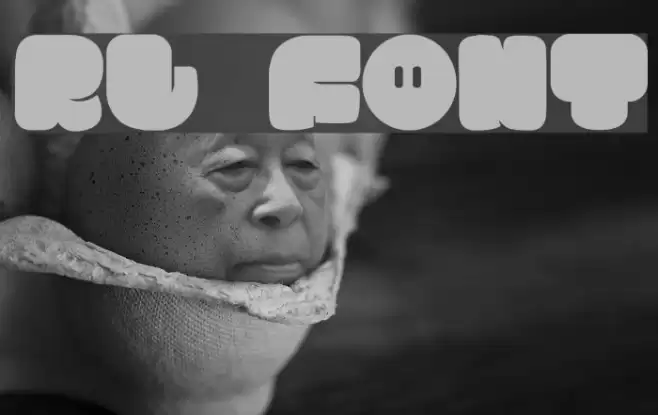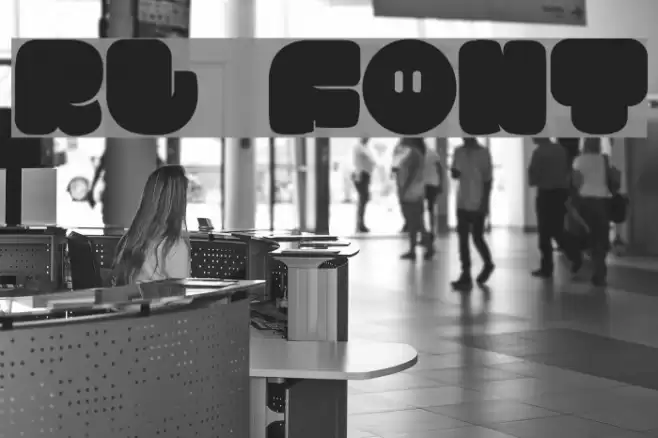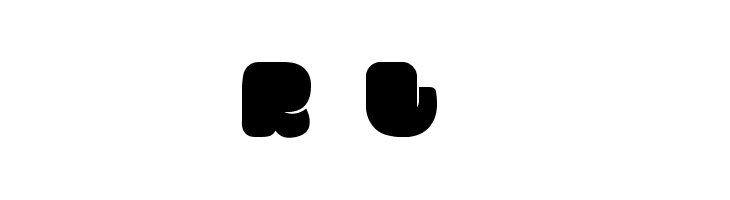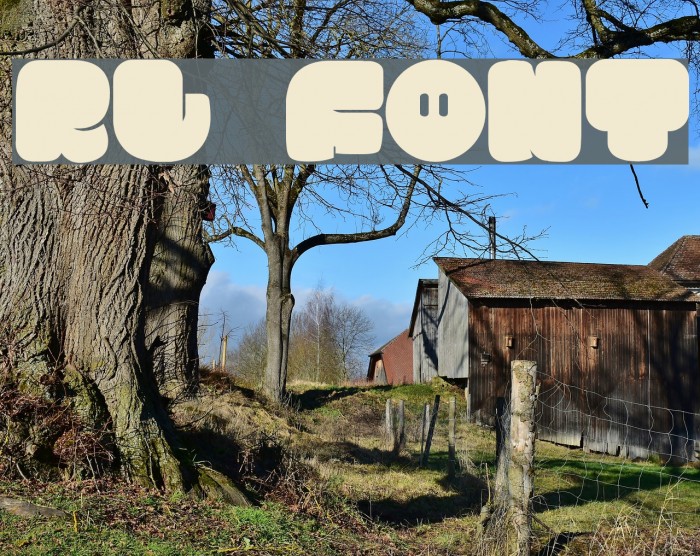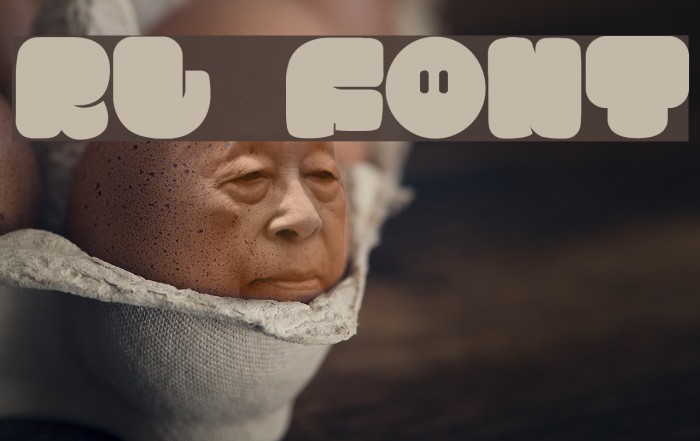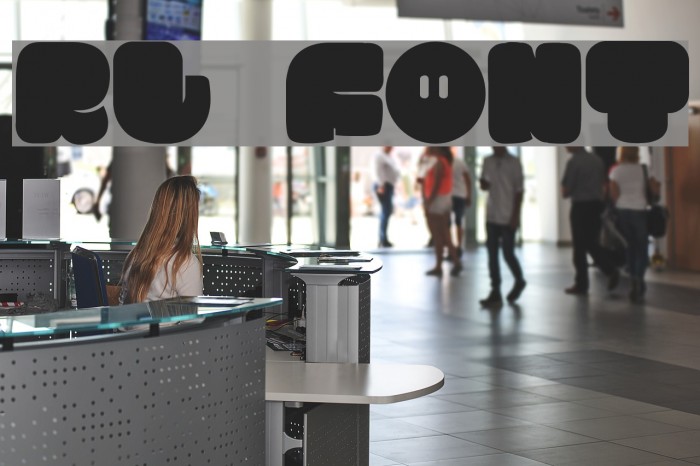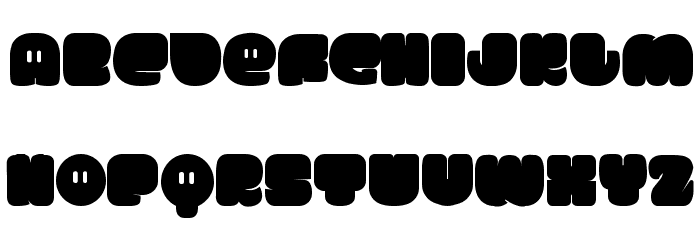
RÖLÓ! Font
RÖLÓ! Description
This font features a bold, rounded style with a playful and modern aesthetic. The characters are heavily weighted, giving them a strong presence on the page. The rounded edges and uniform thickness create a cohesive look, while the unique shapes of certain letters add a touch of whimsy. The font is designed to be eye-catching and is ideal for making a statement. Its boldness ensures readability even at smaller sizes, and the consistent stroke width provides a clean and polished appearance.
A bold, rounded font with a playful and modern style from Fancy fonts.
- Proposed Projects: Ideal for branding, posters, headlines, and any project needing a bold, playful touch.